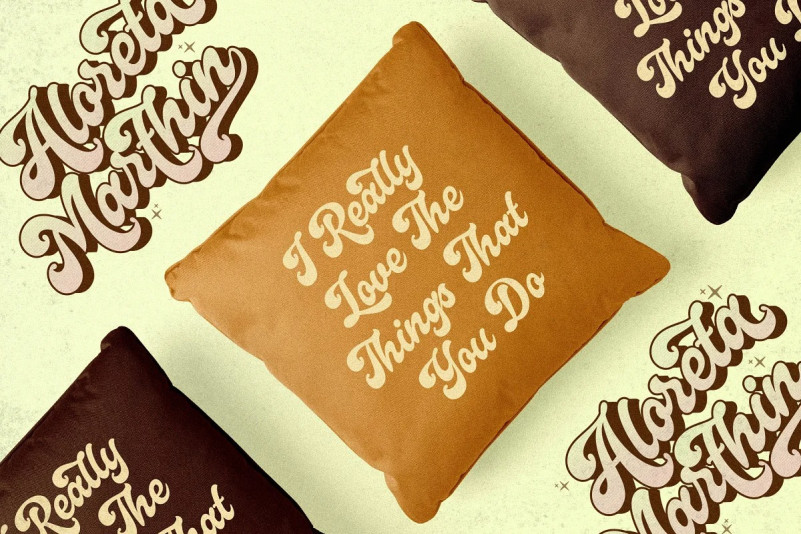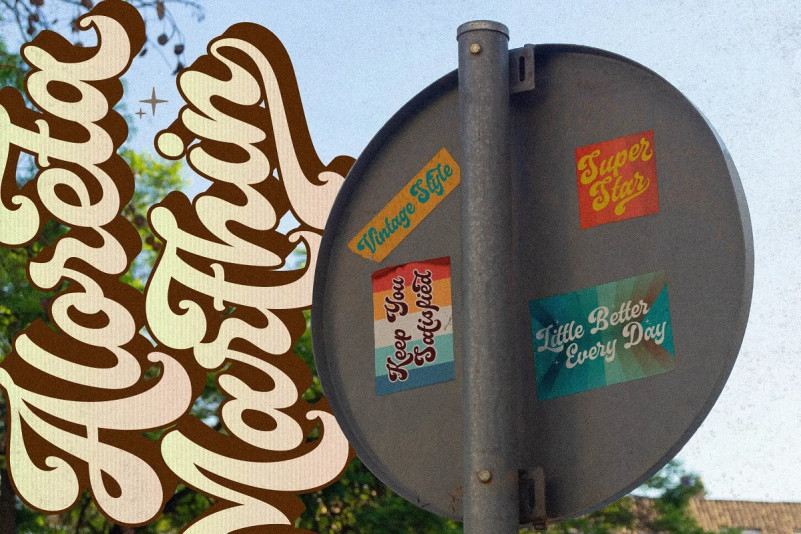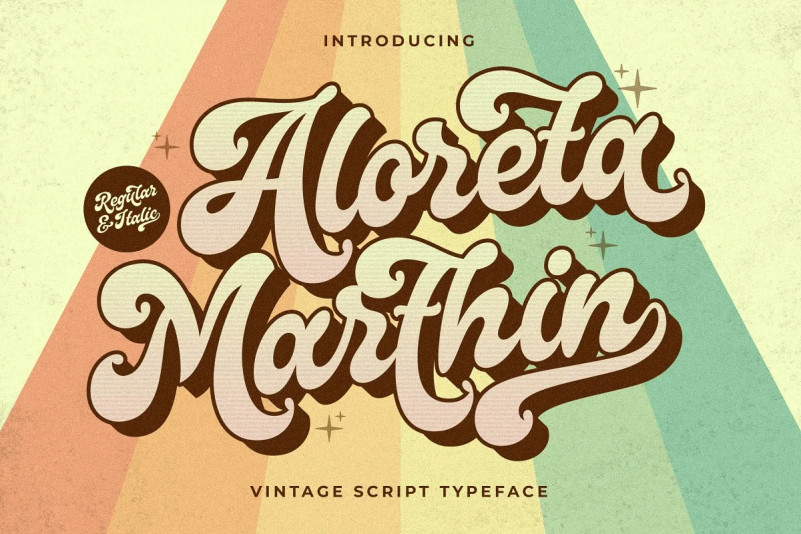
Aloreta Marthin Font
Aloreta Marthin Retro Font, created by Storytype, a serif modern and classic typeface that has own unique style & modern look. This typeface is perfect for an elegant & luxury logo, book or movie title design, fashion brand, magazine, clothes, lettering, quotes, and so much more.